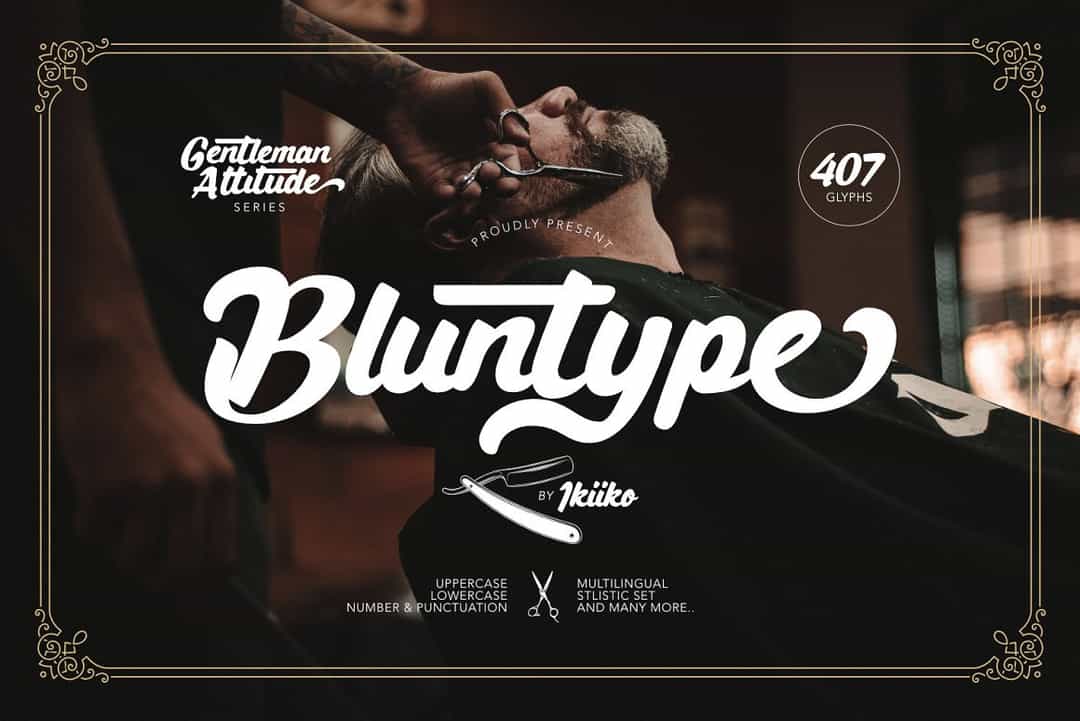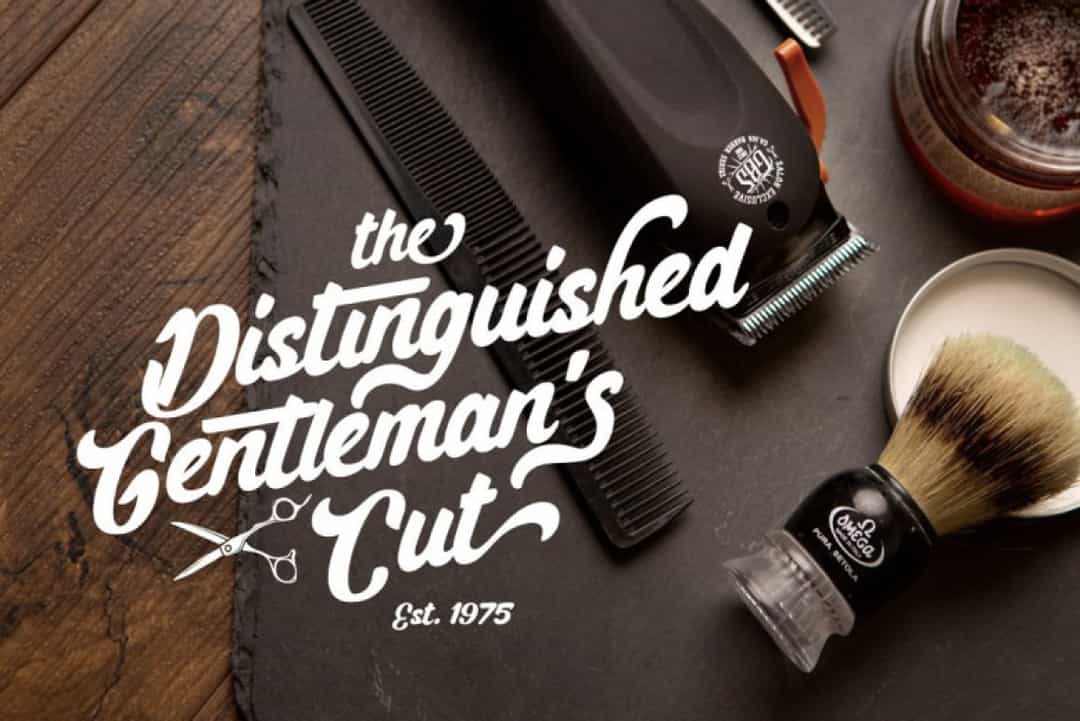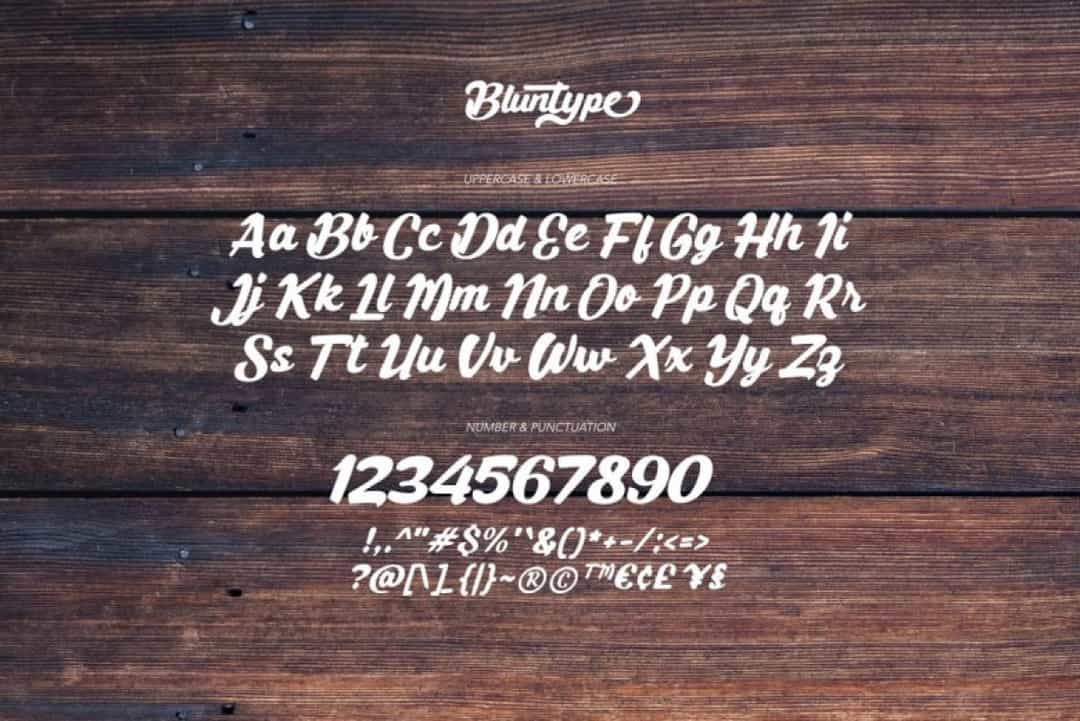
Bluntype is an e-mail display font with a sharp and bold shape style. This versatile font comes with multiple styles available so that you can experiment by employing various ones to craft characters of your liking.